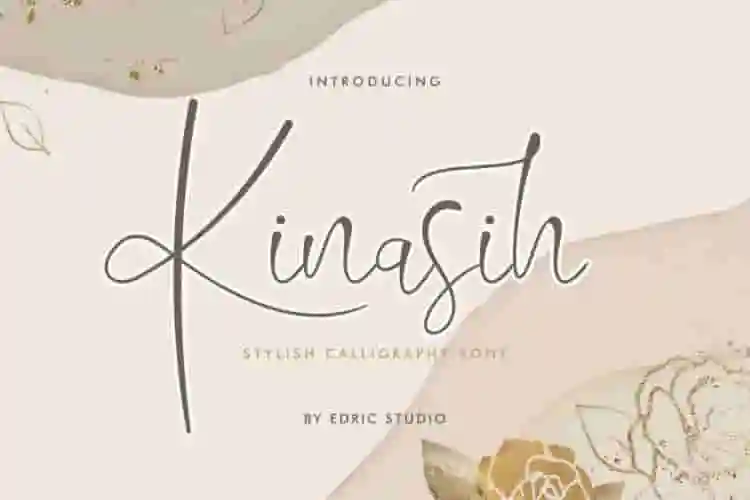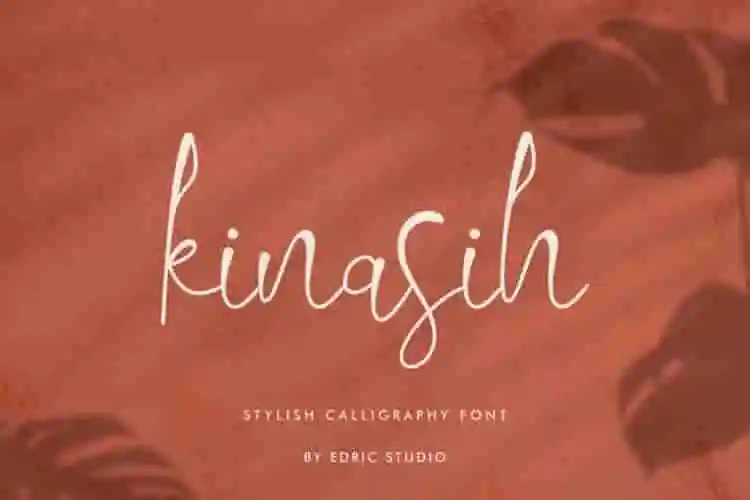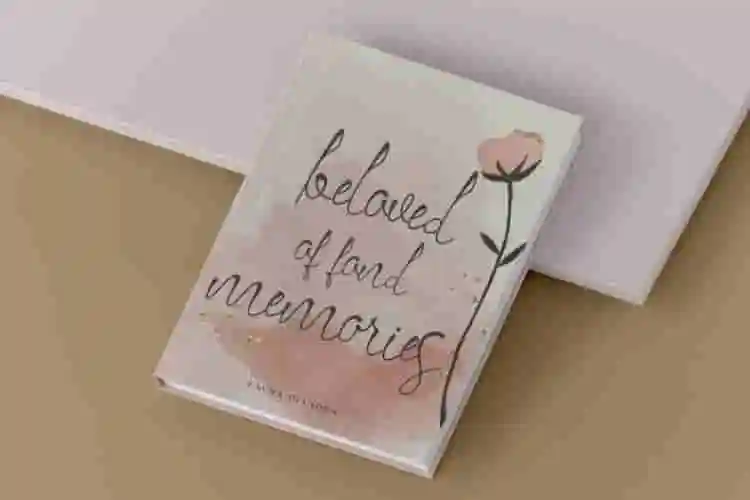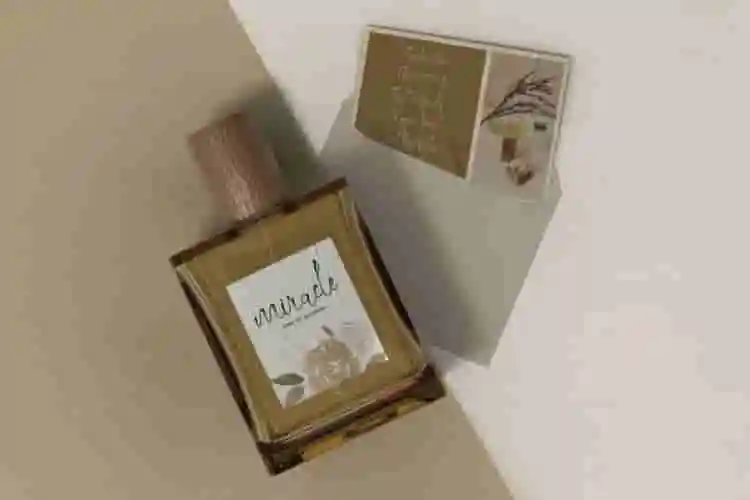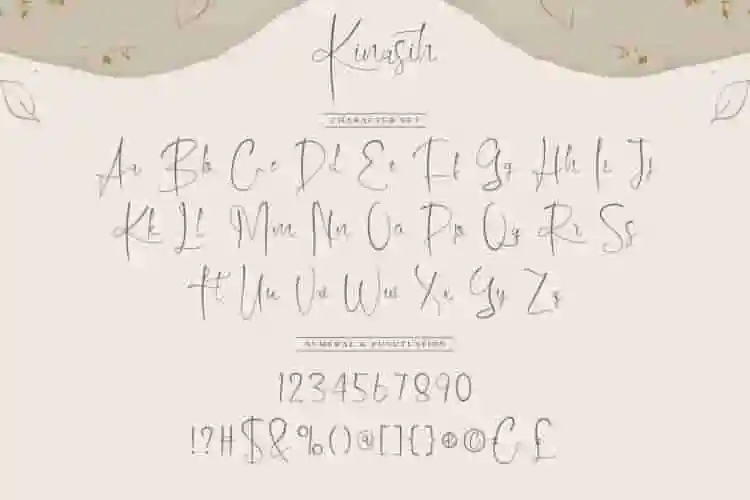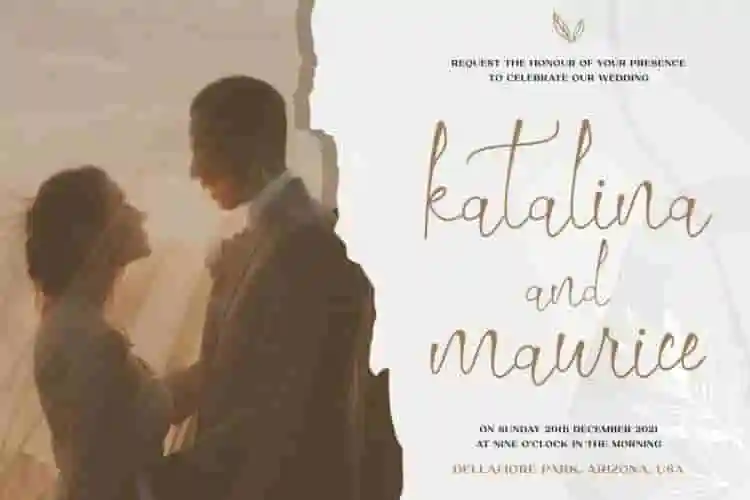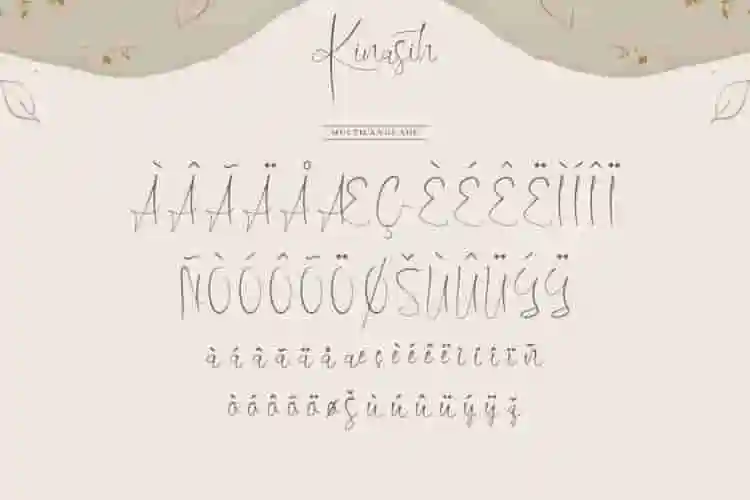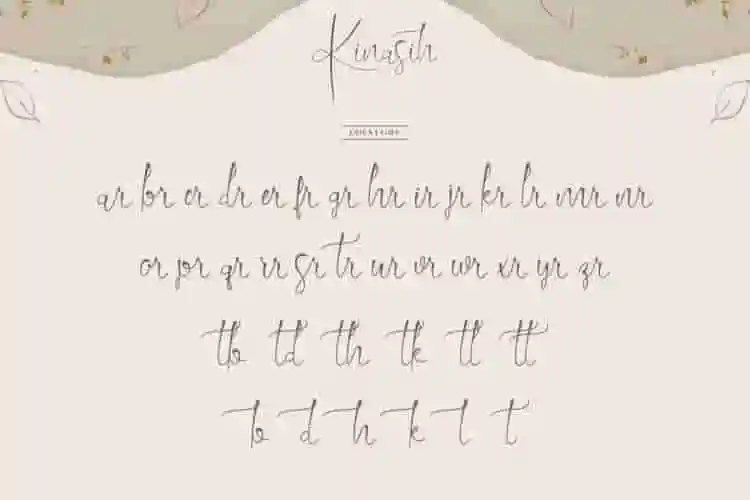
Kinasih brush Font
Kinasih Font is a natural signature font with natural brush handwritten, perfect for many different project such as logos & branding, invitation, label, packaging, wedding designs, special events or anything.
Kinasih Font is a lovely and stylish font that exudes elegance and class. This font was particularly crafted for those who need a beautiful and refreshing look to their designs. The set of fonts you will get includes OTF, TTF, WOFF and Readme Txt. Includes Uppercase and Lowercase Letters, Numbers & Punctuation with charming additional ligature character. Multilingual Support will Work on PC & Mac with Simple installation. PUA Coded Characters. Works also on Adobe (InDesign, Illustrator, Photoshop) and Microsoft Word.
Kinasih Brush Font is a bold and expressive typeface created with natural brush strokes to give your designs a raw, handcrafted feel. Each letter is designed to look like it was painted by hand – dynamic, imperfect, and full of emotion.
Perfect for branding, album covers, social media posts, apparel designs, posters, book titles, packaging, and anything that needs a bold, artistic touch. Kinasih gives your typography the energy of street art combined with the emotion of personal handwriting.